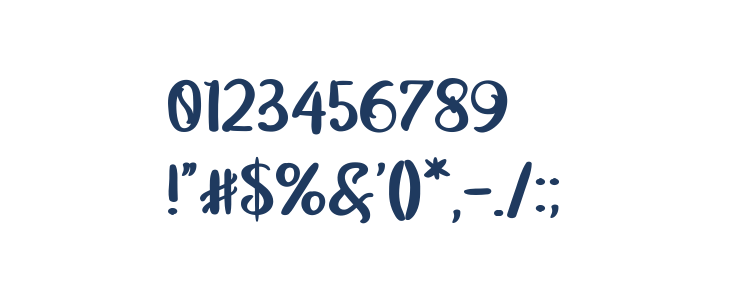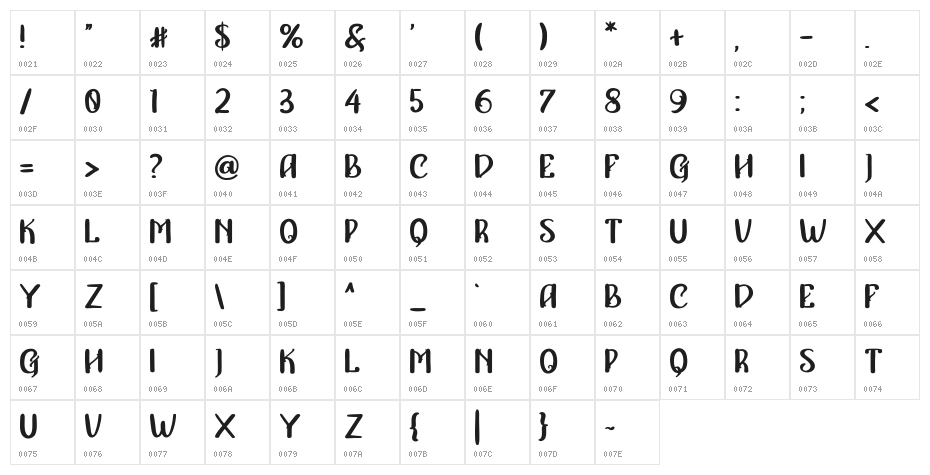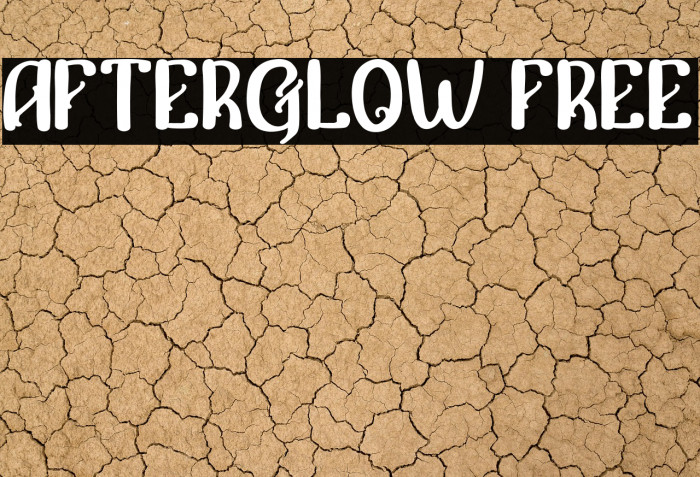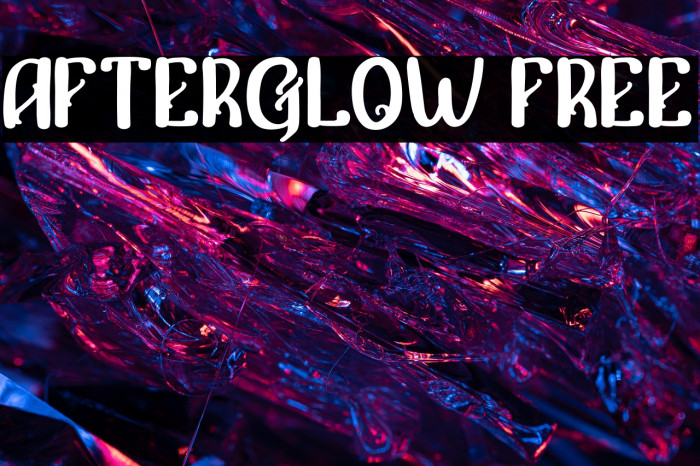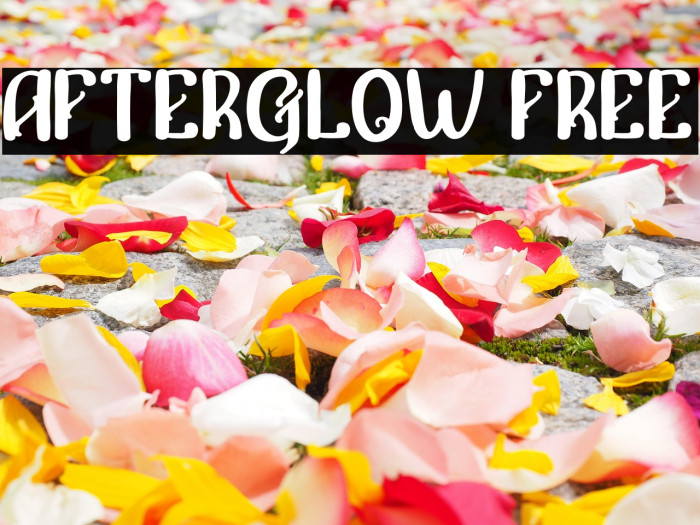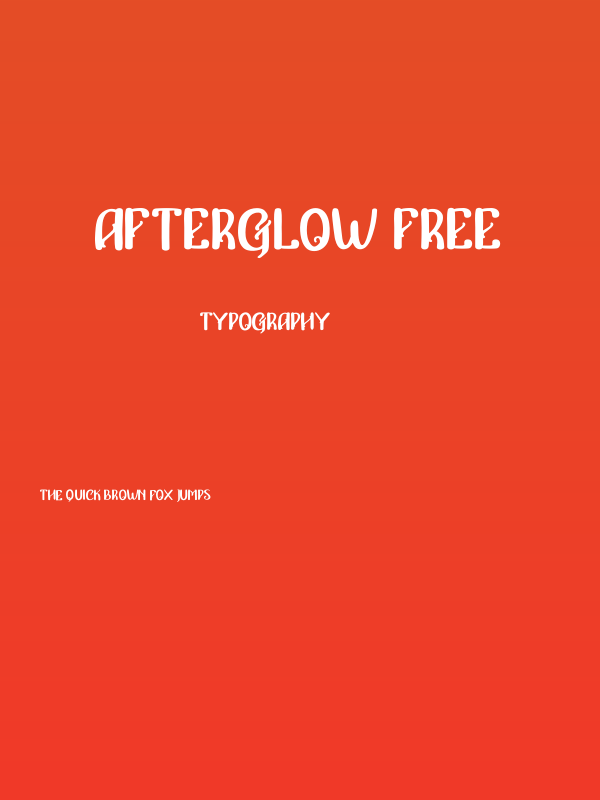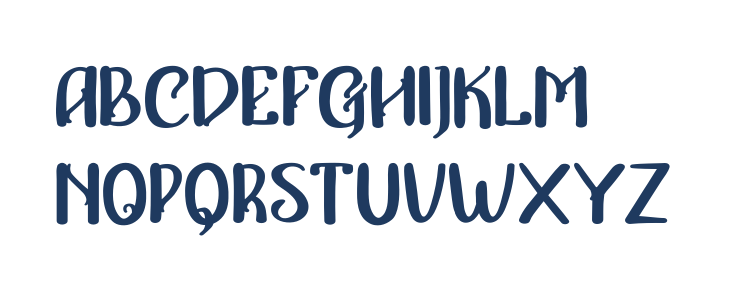
Afterglow FREE Font
Afterglow FREE Description
This font features a bold and expressive style with a handwritten touch, characterized by thick strokes and a playful, casual appearance. The letters are slightly slanted, adding a dynamic feel, while maintaining a consistent weight throughout. The uppercase and lowercase letters are well-balanced, with a unique flair in certain characters, such as the curved tails and loops. The numerals and special characters complement the alphabet with similar boldness and style, making it suitable for eye-catching designs.